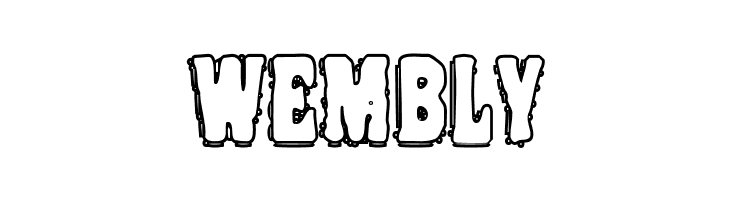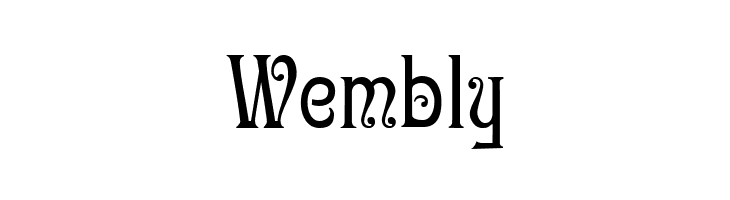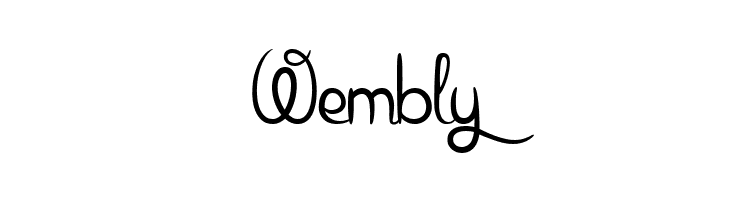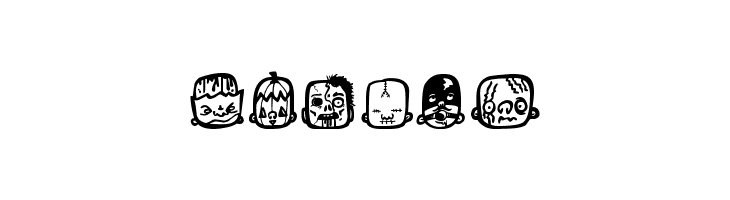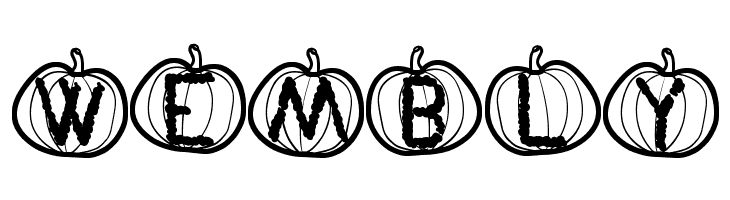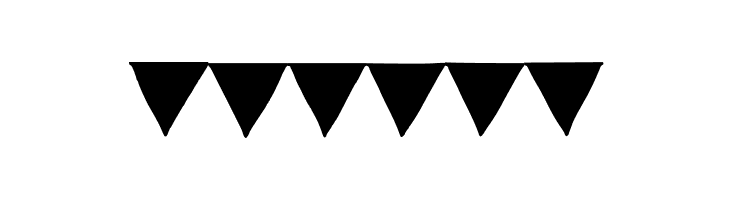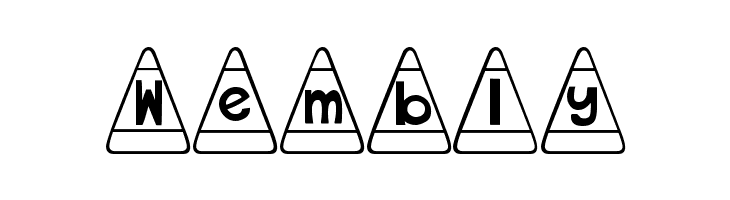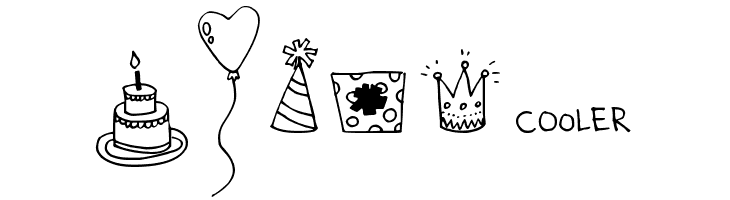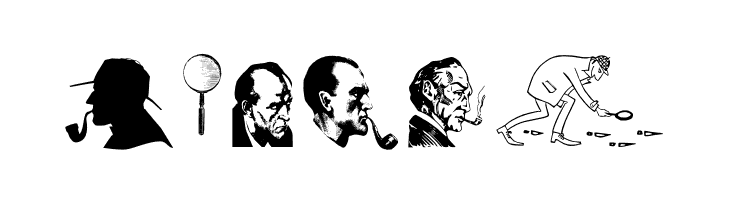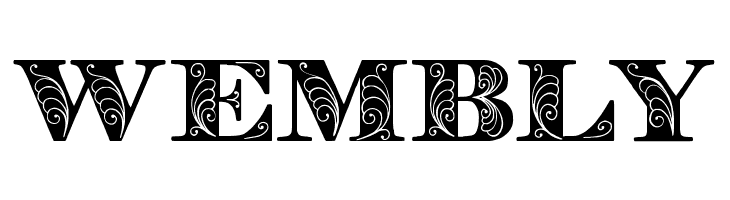
A bold, dripping font with a playful, spooky aesthetic.
An ornate, Victorian-style font with decorative elements and elegant flourishes.
A spooky, dripping font perfect for Halloween-themed designs.
An elegant and decorative script font with flowing, interconnected letters.
A bold, flame-themed decorative font perfect for dramatic headlines.
A decorative font with cartoonish zombie characters for each letter and number.
A playful, spooky font with bold, rounded letters and a shadow effect.
A spooky, Halloween-themed font with dripping, cobwebbed characters.
A playful Halloween-themed font with characters inside pumpkin shapes.
Decorative black triangular pennant banner pattern.
A playful font with characters inside candy corn shapes, ideal for festive designs.
A playful, hand-drawn font with bold, rounded letters and a sketchy outline.
Detective-themed dingbats with vintage silhouettes and illustrations.
A bold, decorative font with intricate internal patterns and elegant swirls.
A playful, spooky font with a dripping, gooey texture perfect for Halloween themes.
A dripping, eerie font perfect for horror themes.
Halloween-themed icon font with bold, playful silhouettes.
Decorative flame-themed icon set with varied styles.
A diverse set of eagle-themed graphic emblems and icons.
A spooky collection of bold, Halloween-themed icons in solid black silhouettes.
A decorative icon set themed around love and Valentine's Day.
A spooky, dripping font ideal for horror-themed designs.
A playful font with letters inside caramel apple shapes, perfect for festive designs.
A decorative font with detailed Christmas-themed illustrations.
A decorative font with letters inside birthday cakes, ideal for festive designs.
A playful font with characters inside popcorn boxes, perfect for fun and themed projects.
A playful font with letters inside cartoon bee characters, ideal for children's projects.
A bold, sans-serif font with decorative spider motifs for a spooky effect.
A decorative collection of Christmas-themed images.
A whimsical font with letters inside cartoonish swimsuits, perfect for playful themes.